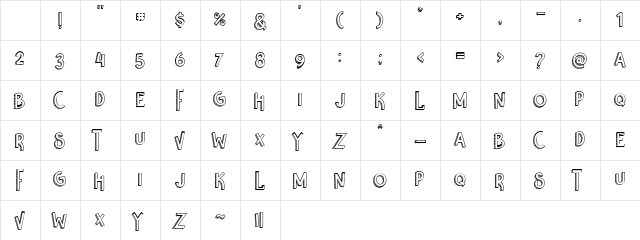
Complete Nikolas & Pine Regular glyph index. Displaying only characters natively supported by Nikolas & Pine Regular font.
Nikolas & Pine is a composed and adaptable typeface that performs quietly and consistently across a wide range of design contexts.